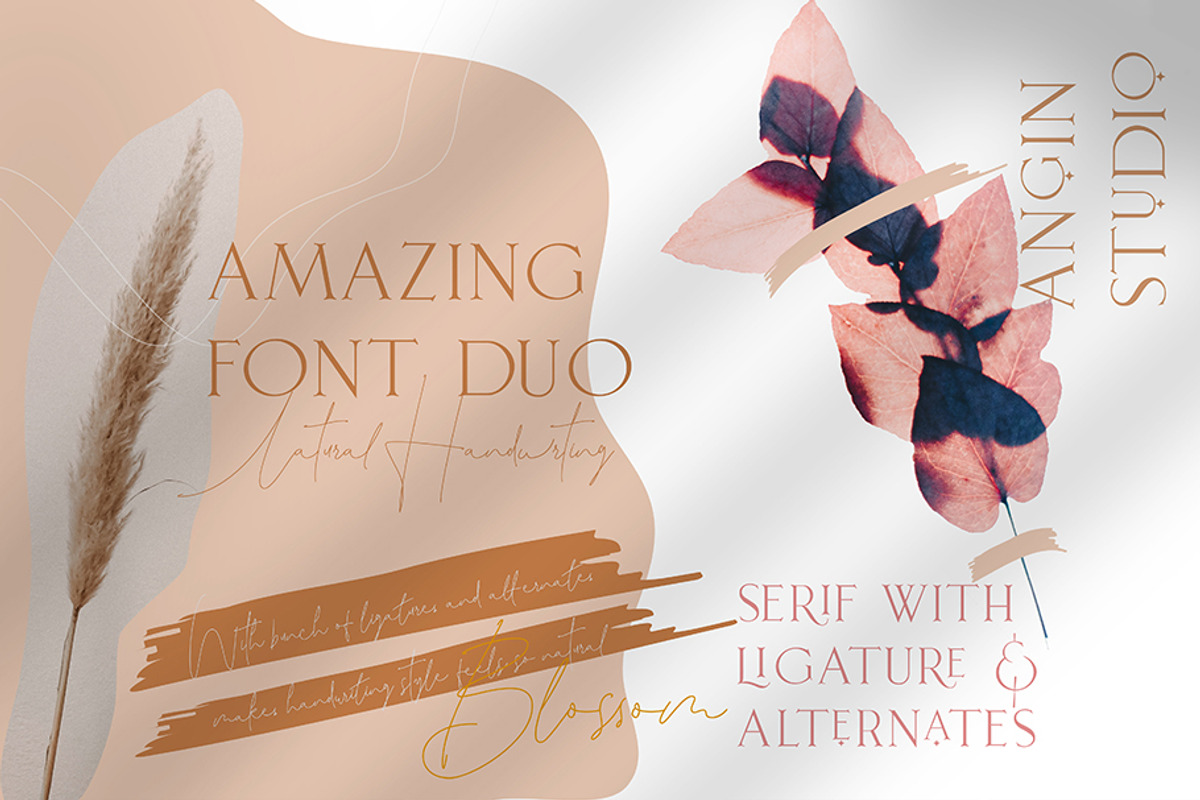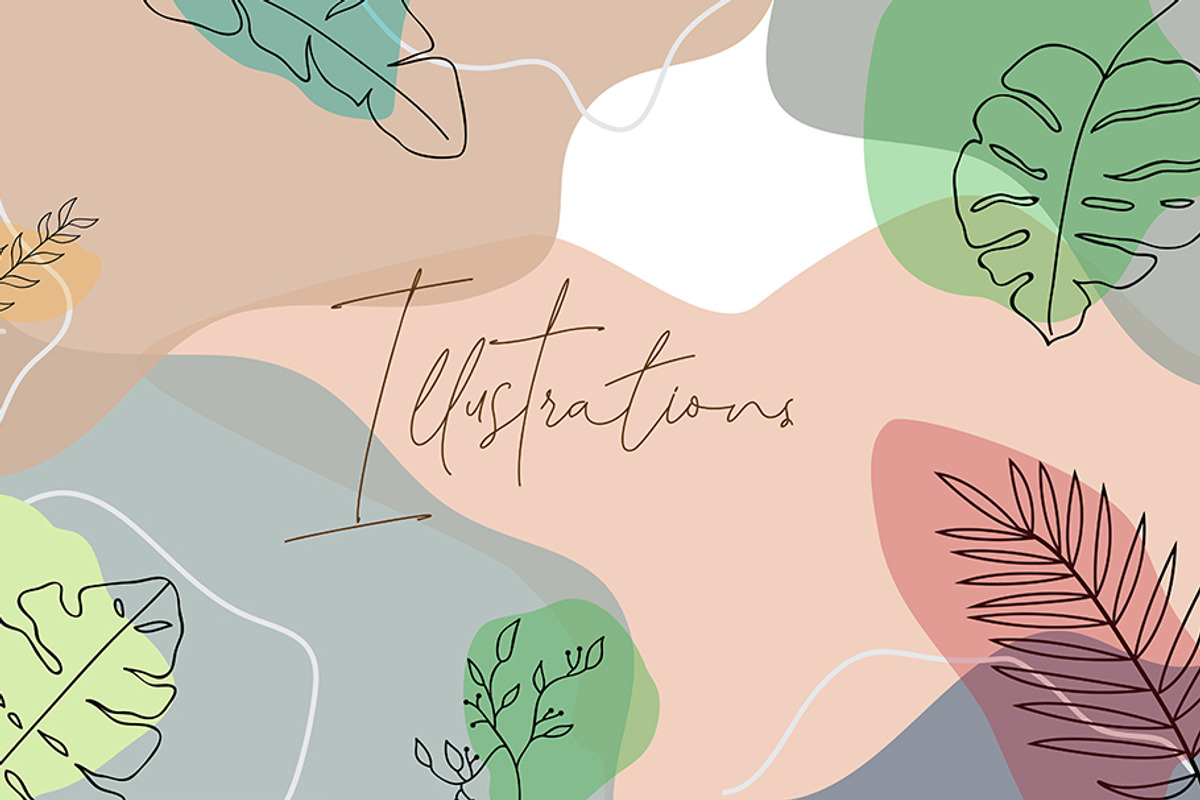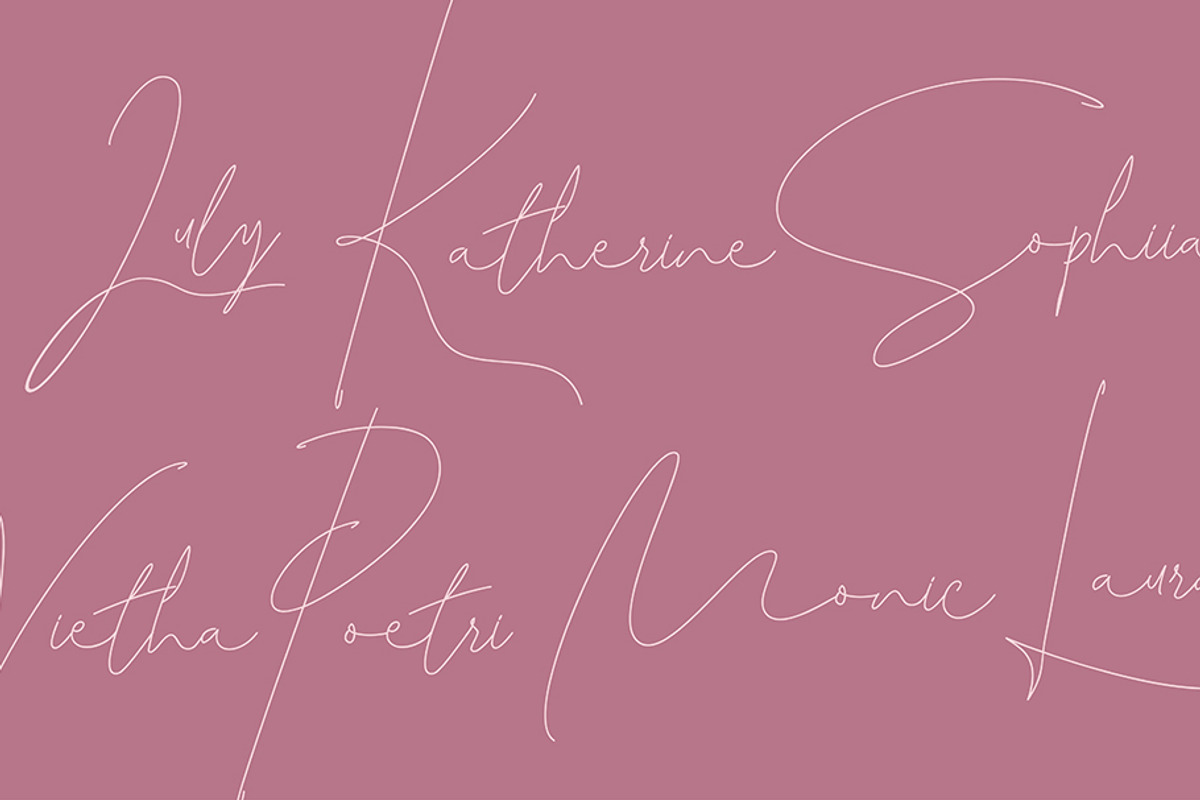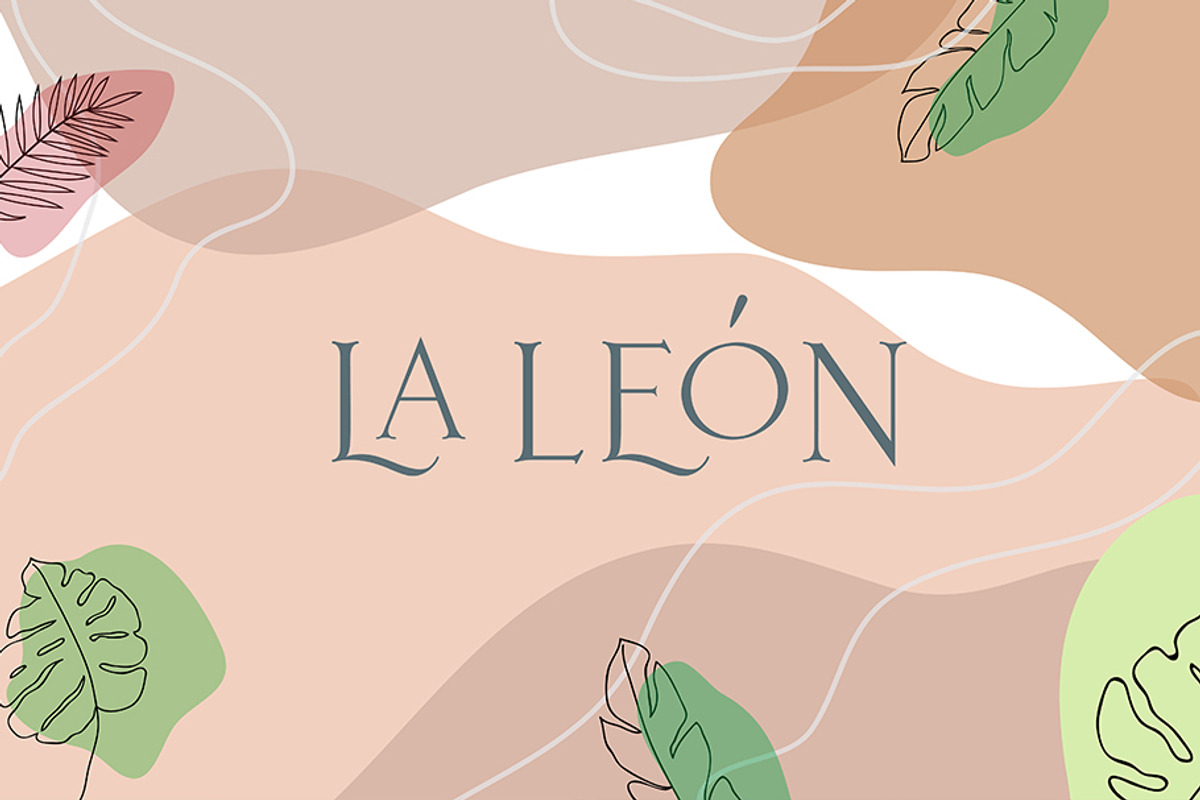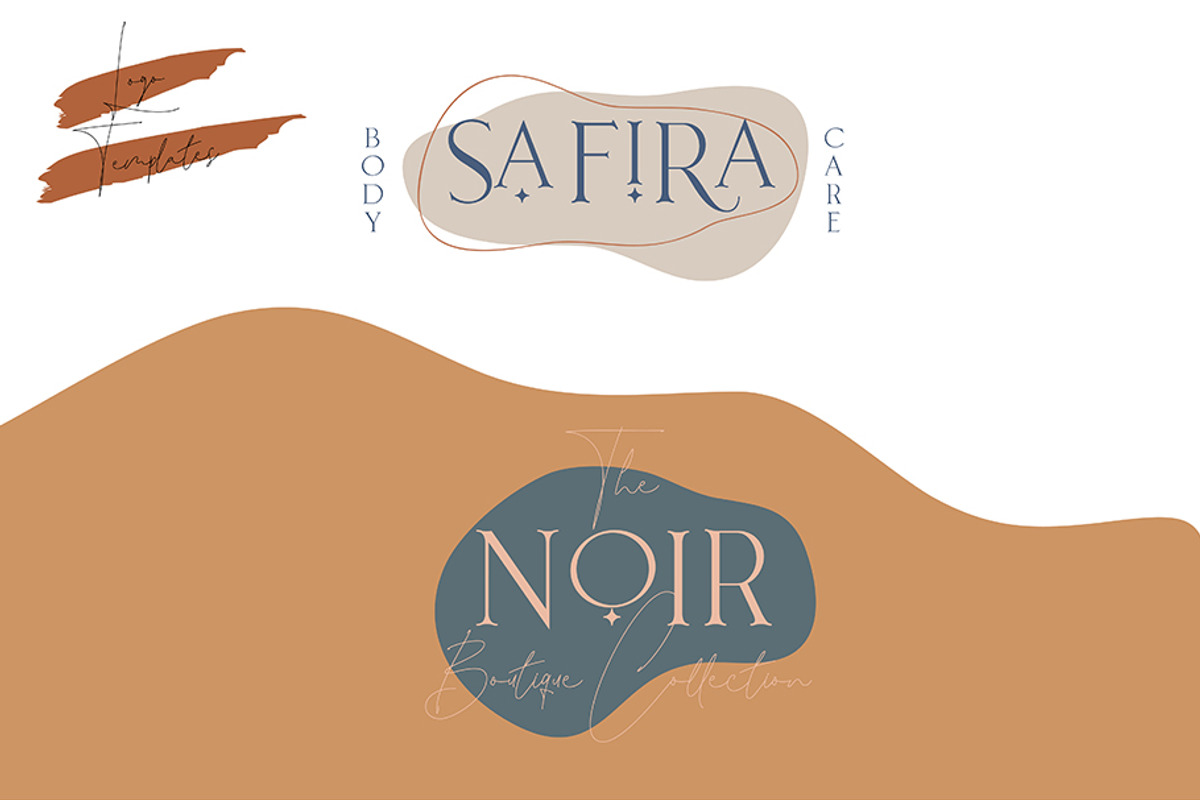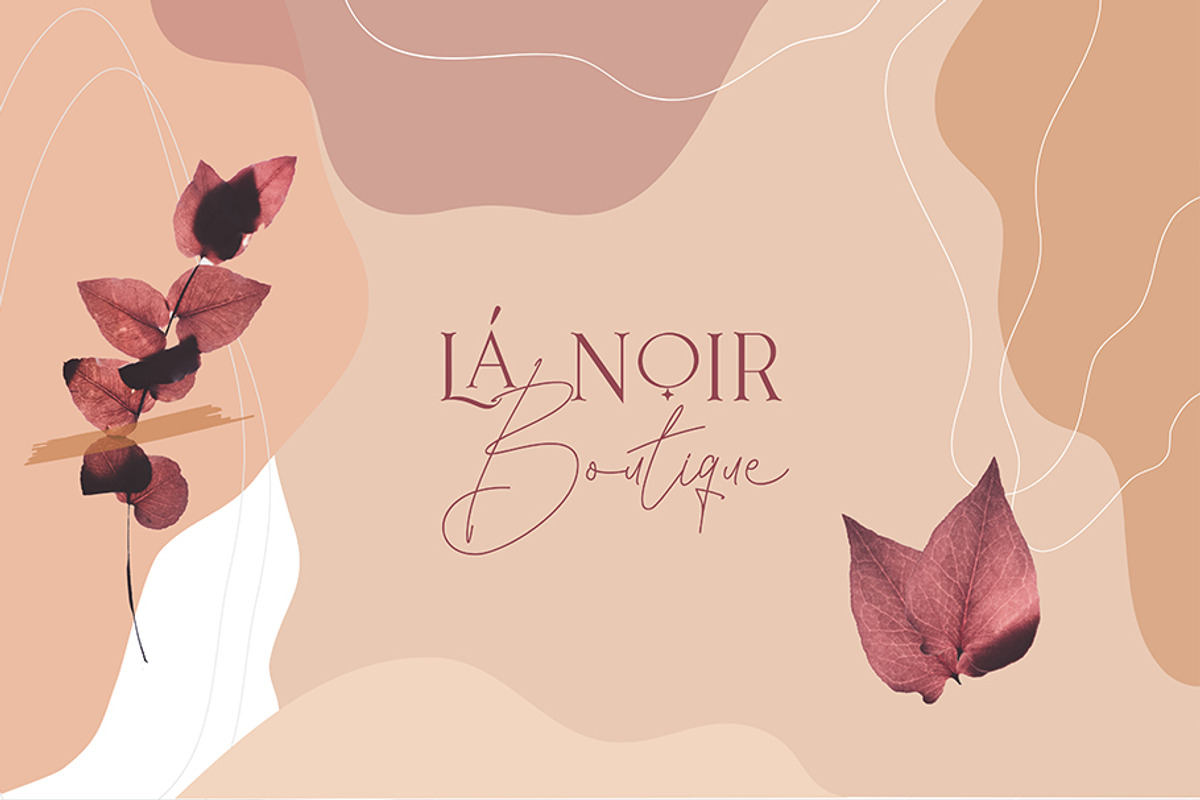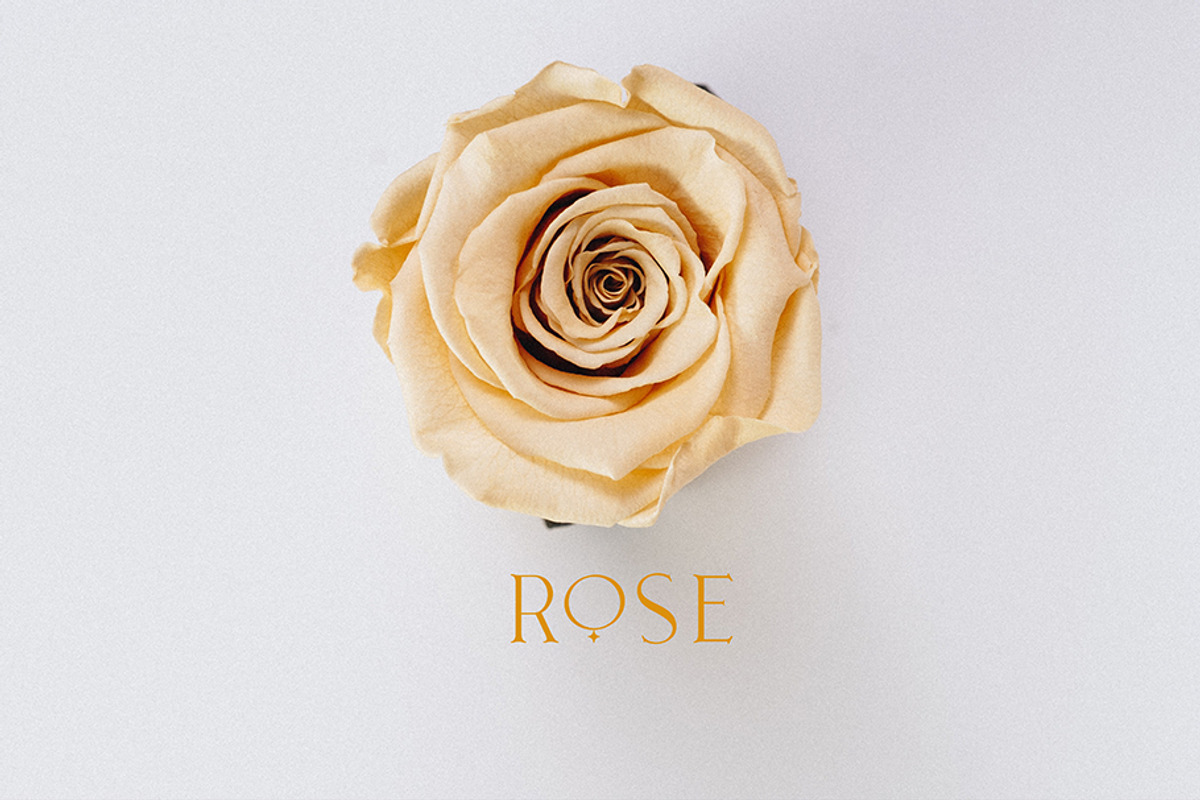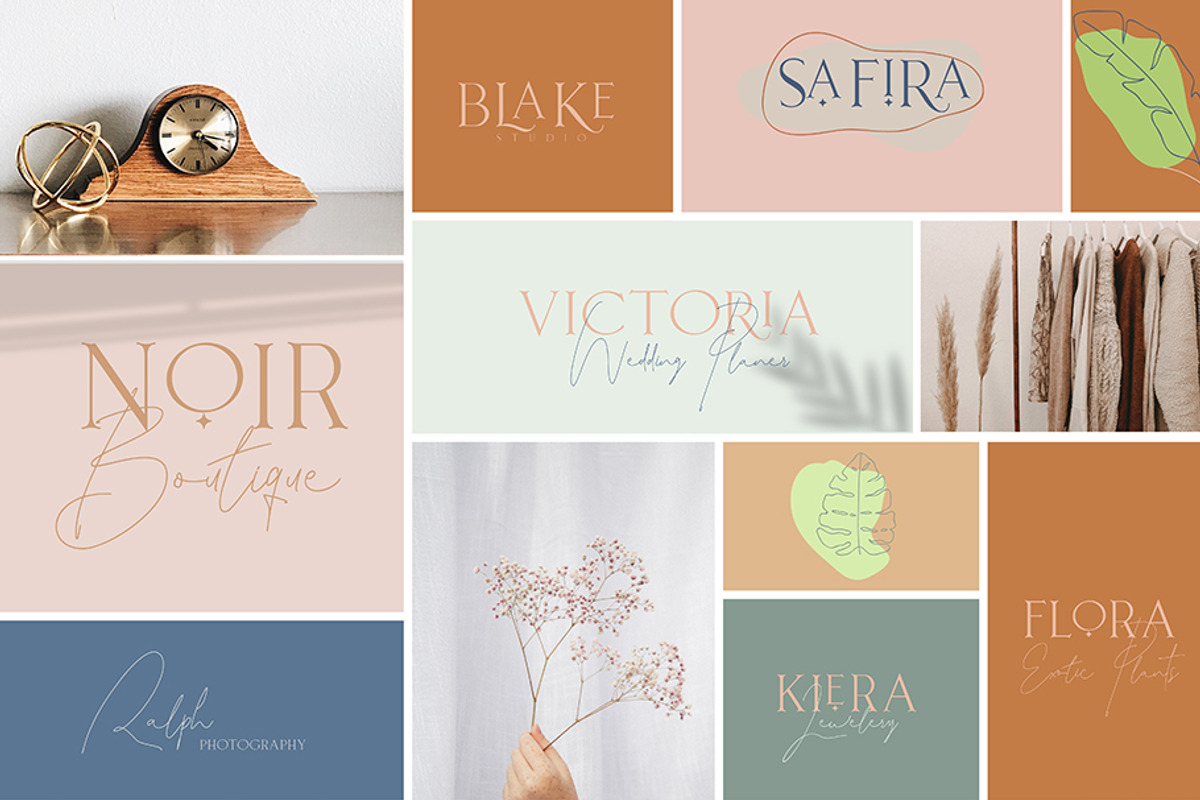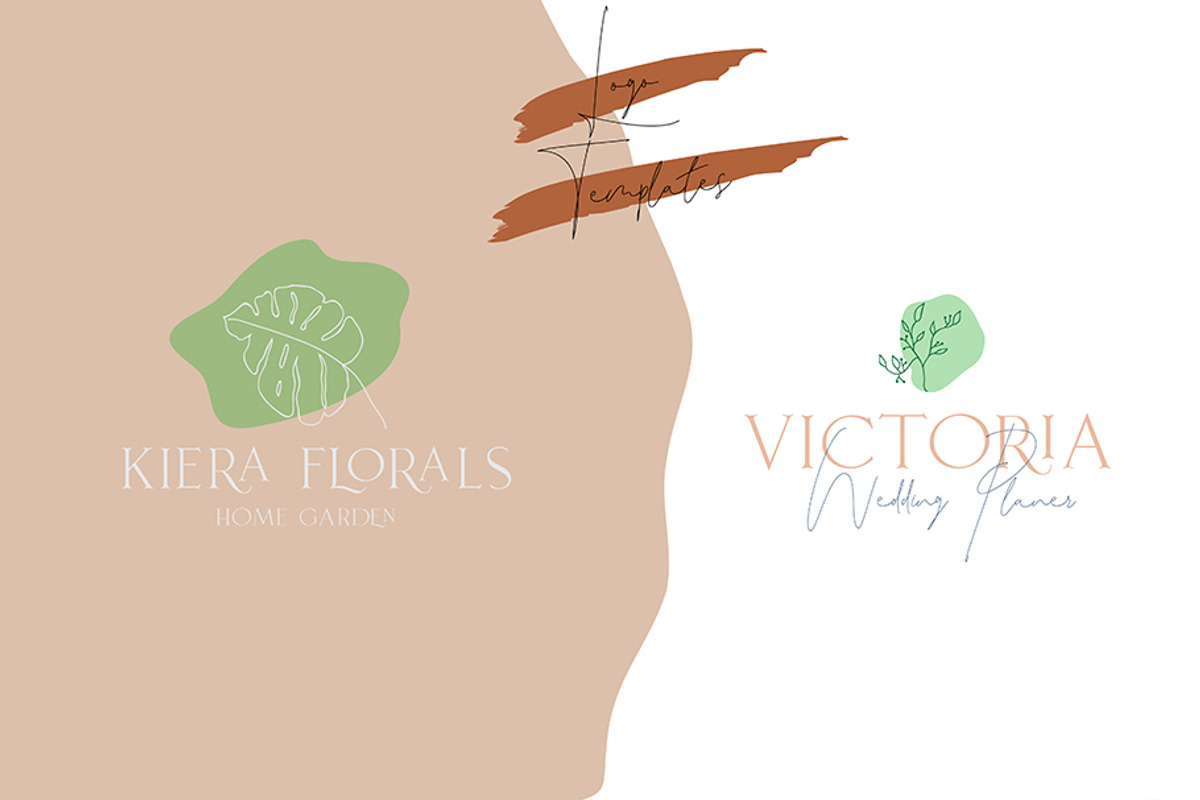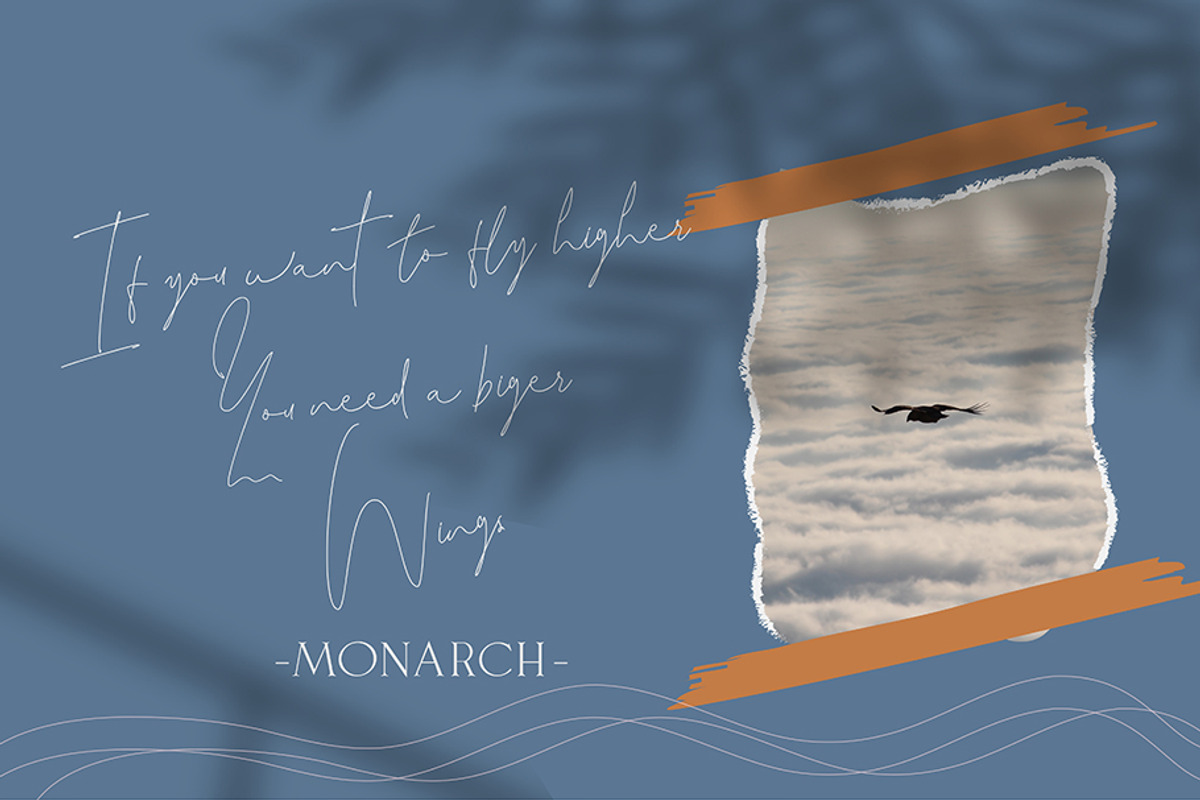
Leonetta Font Duo + Extras
Leonetta Font Duo a perfectly paired elegant Leonetta Serif with luxury handwriting style Leonetta Script.
Leonetta Script was designed to imitate a natural handwriting text, comes with ligatures and alternates character to achieving the natural ways of writing and having beautiful visual appear, Leonetta Serif comes with bunch of ligatures and alternates with attractive visual appear will give you the fleksibility to mix and match the letter so it can speak visually the way you speak.